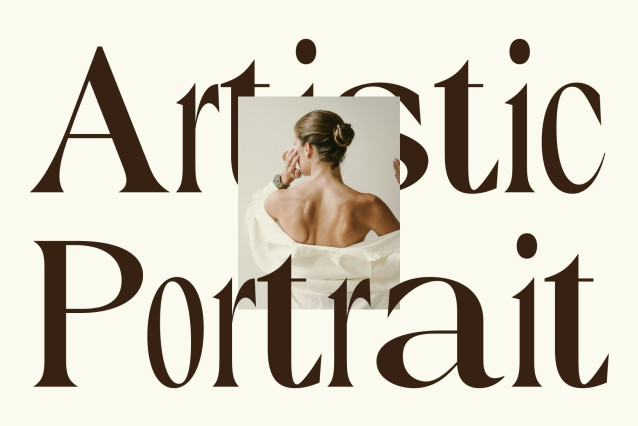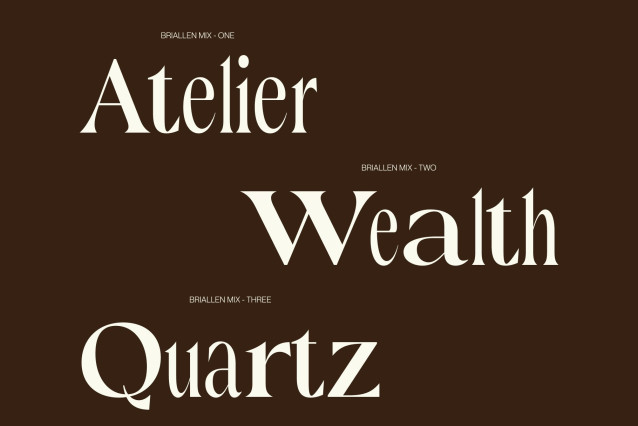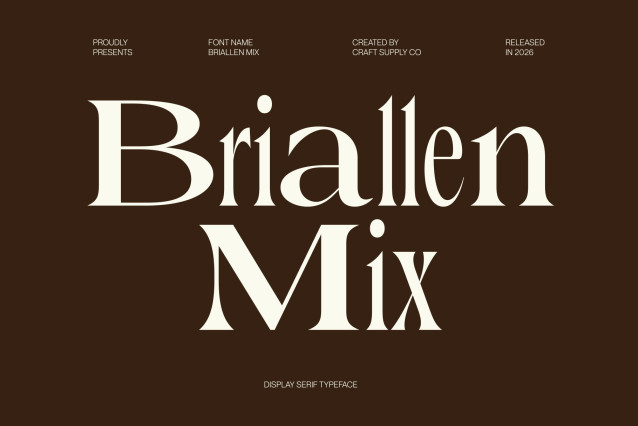
Briallen Mix Font
Briallen Mix – Elegant Serif Font: Timeless Grace with Contemporary Balance
Elegant Serif with Mixed Weight Expression
This is a modern serif font designed to radiate refinement, elegance, and professional charm. Crafted with graceful proportions and sophisticated details, this typeface introduces a distinctive mixed-weight approach that brings subtle contrast and visual rhythm to every composition.
A Refined Blend of Regular and Bold Letterforms
The unique character of this font comes from its carefully balanced fusion of regular and bold styles. This mix creates a refined typographic flow that enhances hierarchy and adds visual interest without losing harmony. The contrast between weights provides a polished and dynamic appearance, allowing headlines, subheadings, and body text to work together seamlessly while maintaining a cohesive aesthetic.